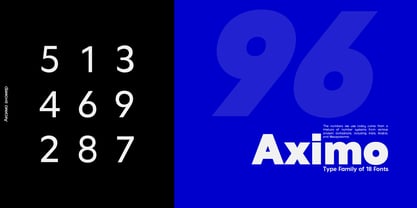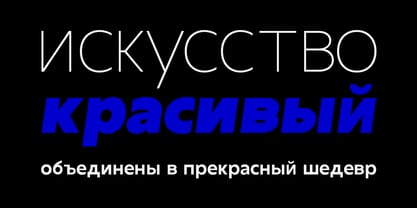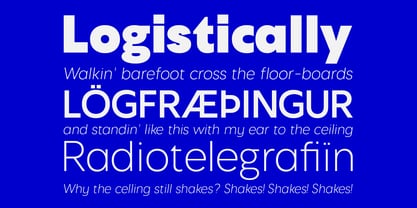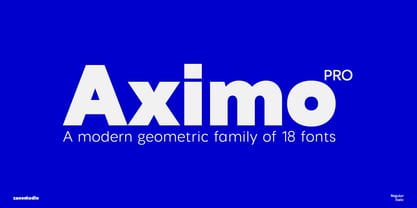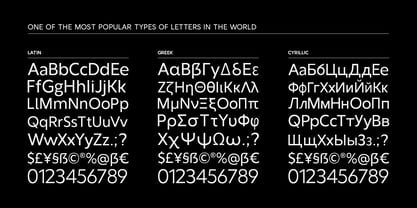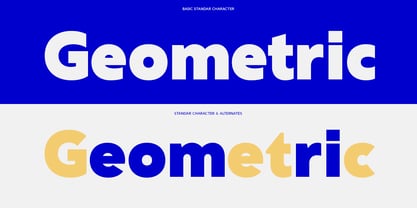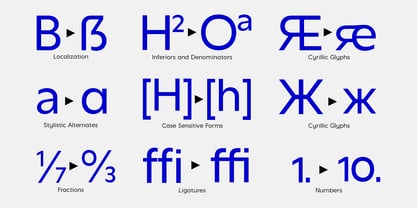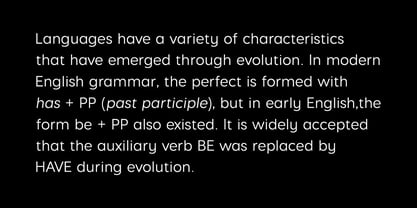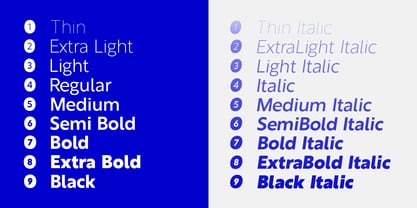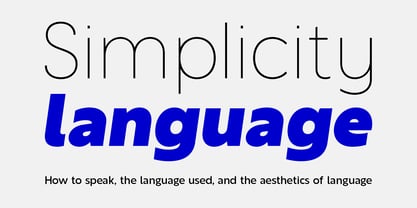
Aximo
by Zane Studio
The Aximo Font Family was designed by Mur Zani and published by Zane Studio. Aximo contains 18 styles and family package options.
Aximo is a modern sans serif with a geometric twist. Available in 18 weights, 9 perpendiculars, and a matching italic. The Thin & Black weight is free, so you can use it however you want. Designed with advanced opentype features in mind. Each weight includes extended language support (+Cyrillic), fractions, table images, arrows, ligatures, and more. Perfect for graphic design and any display use. Can be easily used for web design, signage, corporate, and editorial.
About Zane Studio
My name is Murzani and I design fonts under the name Zane Studio. Founded in 2018, Zane Studio is a font design studio based in Aceh, Indonesia, where I am now pursuing my new passion completely from my home studio. I draw letters and I love all forms of creativity. I love creating beautiful things and experimental typography and constantly learning new things. I launched my first font at the end of 2018. Since then I've changed my freelance business to Zane Studio.